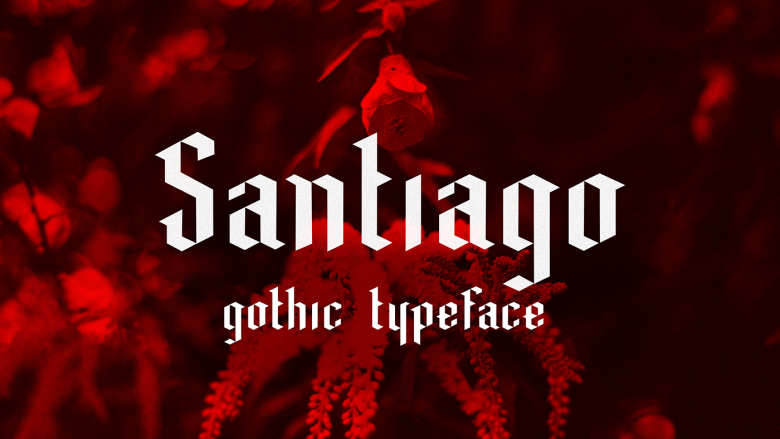
Santiago Typeface
Introducing Santiago Typeface! Santiago is a traditional blackletter face closest to Linotype’s Old English. Santiago Typeface designed by Cristian López. Carol Gothic fits perfectly for Victorian-looking designs but it is also suitable for any layouts which need blackletter.